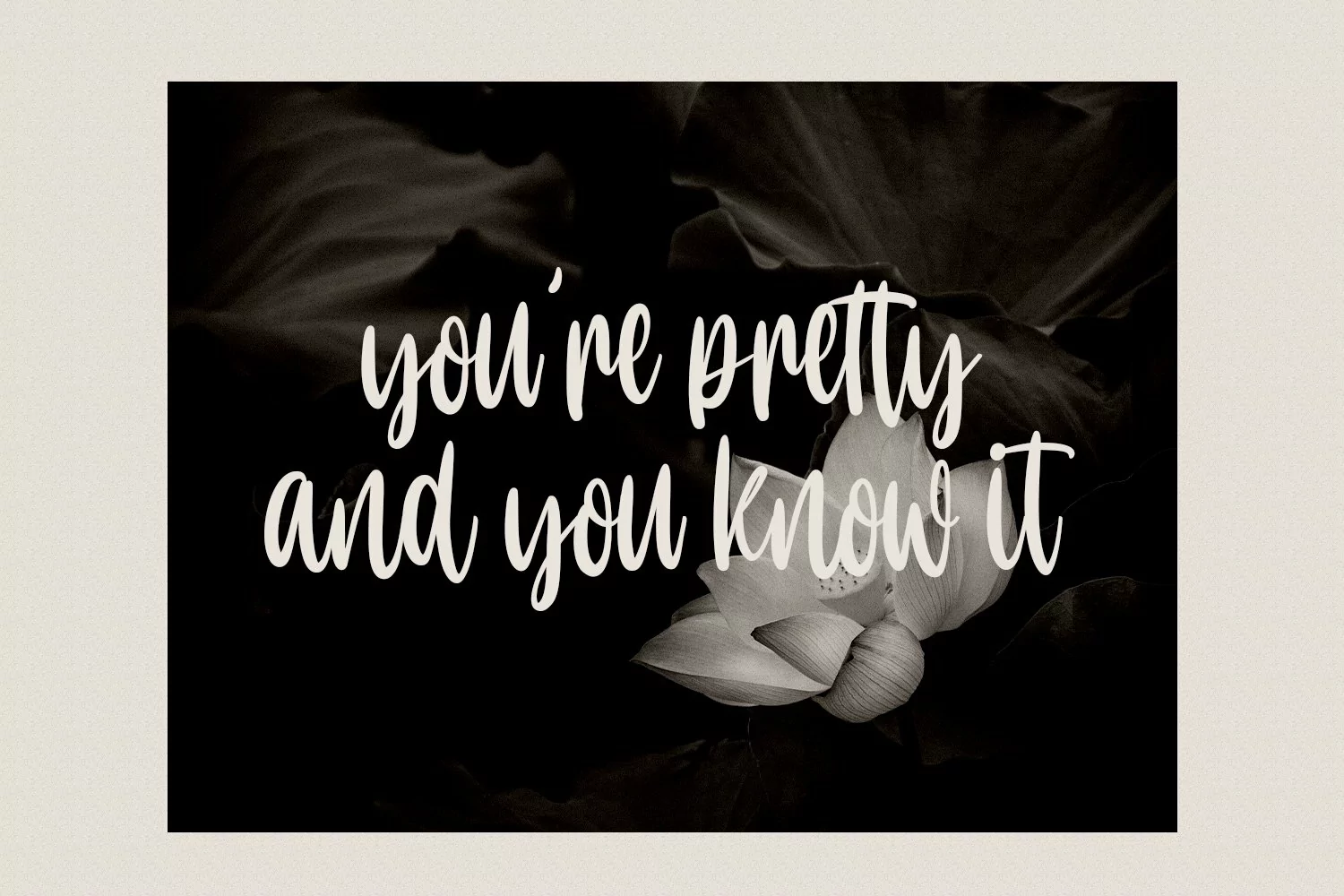
Olla Chester is a casual modern script font. With upright regular contrast stroke, fun character. To give you an extra creative work. Olla Chester font support multilingual more than 100+ language. This font is good for logo design, Social media, Movie Titles, Books Titles, a short text even a long text letter and good for your secondary text font with sans or serif. Make a stunning work with Olla Chester font.
Olla Chester